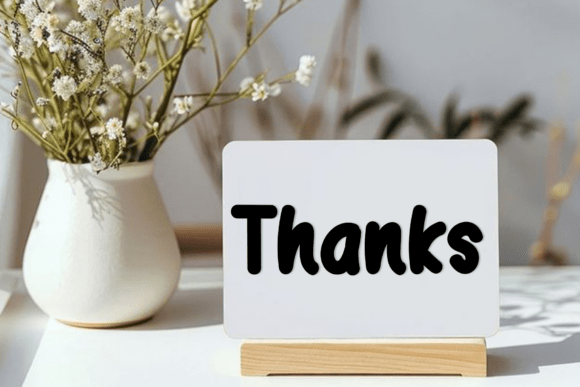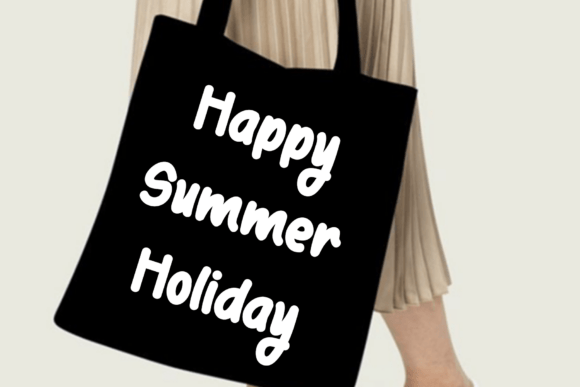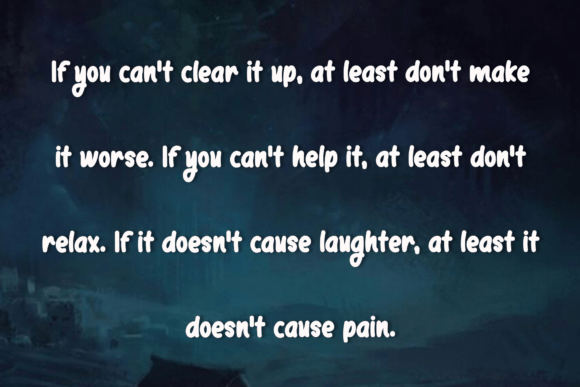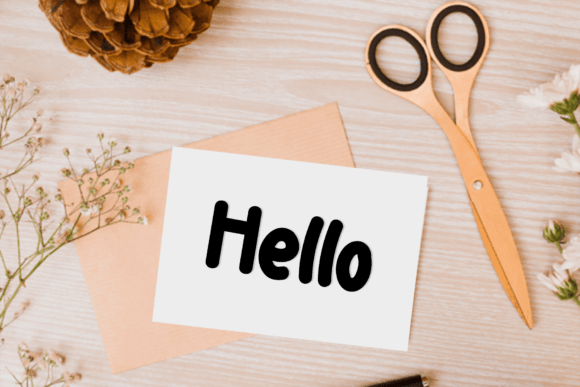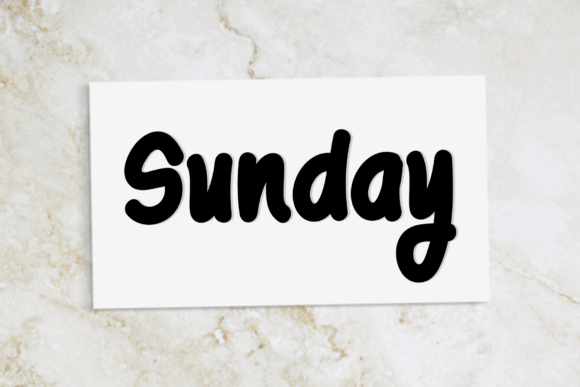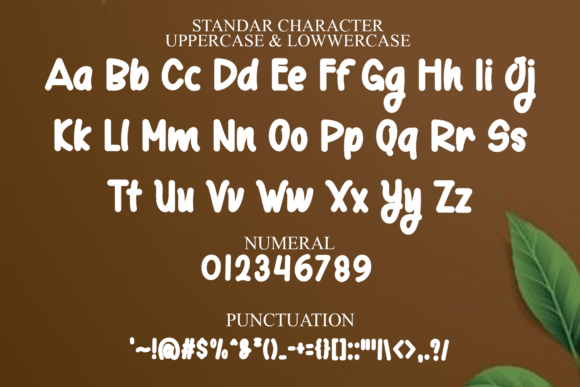
Introduction to Mickey Costume Font
Mickey Costume is a casual and creative font that exudes warmth and friendliness.
Key Features of Mickey Costume Font
Why Choose Mickey Costume Font?
Mickey Costume Font offers exceptional quality and versatility, making it a valuable addition to your design toolkit. Whether you’re creating for personal projects or commercial use, Mickey Costume Font delivers professional results.